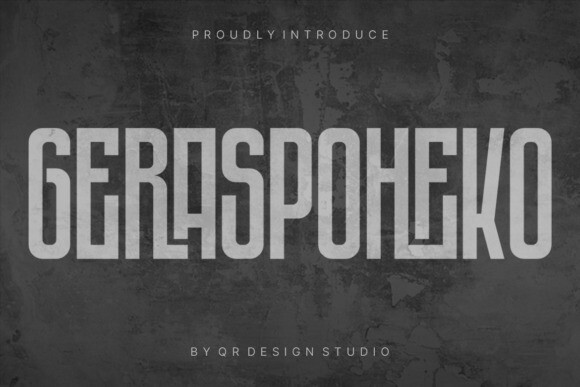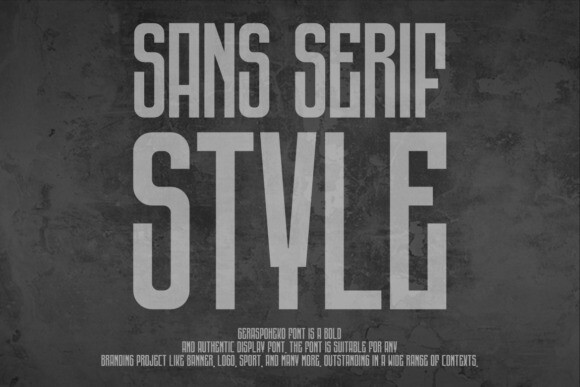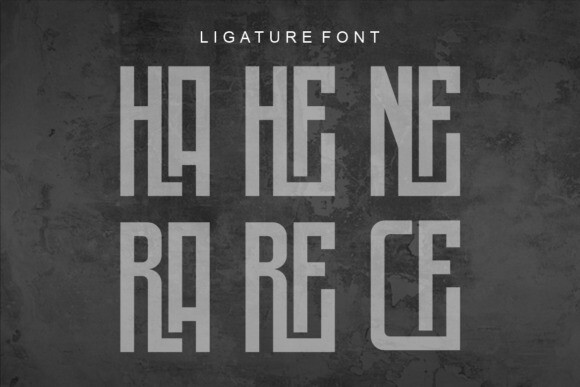
Geraspoheko Font
Geraspoheko Font is a bold and authentic display font.
The font is suitable for any branding project like logo, sport, and many more.
Outstanding in a wide range of contexts.